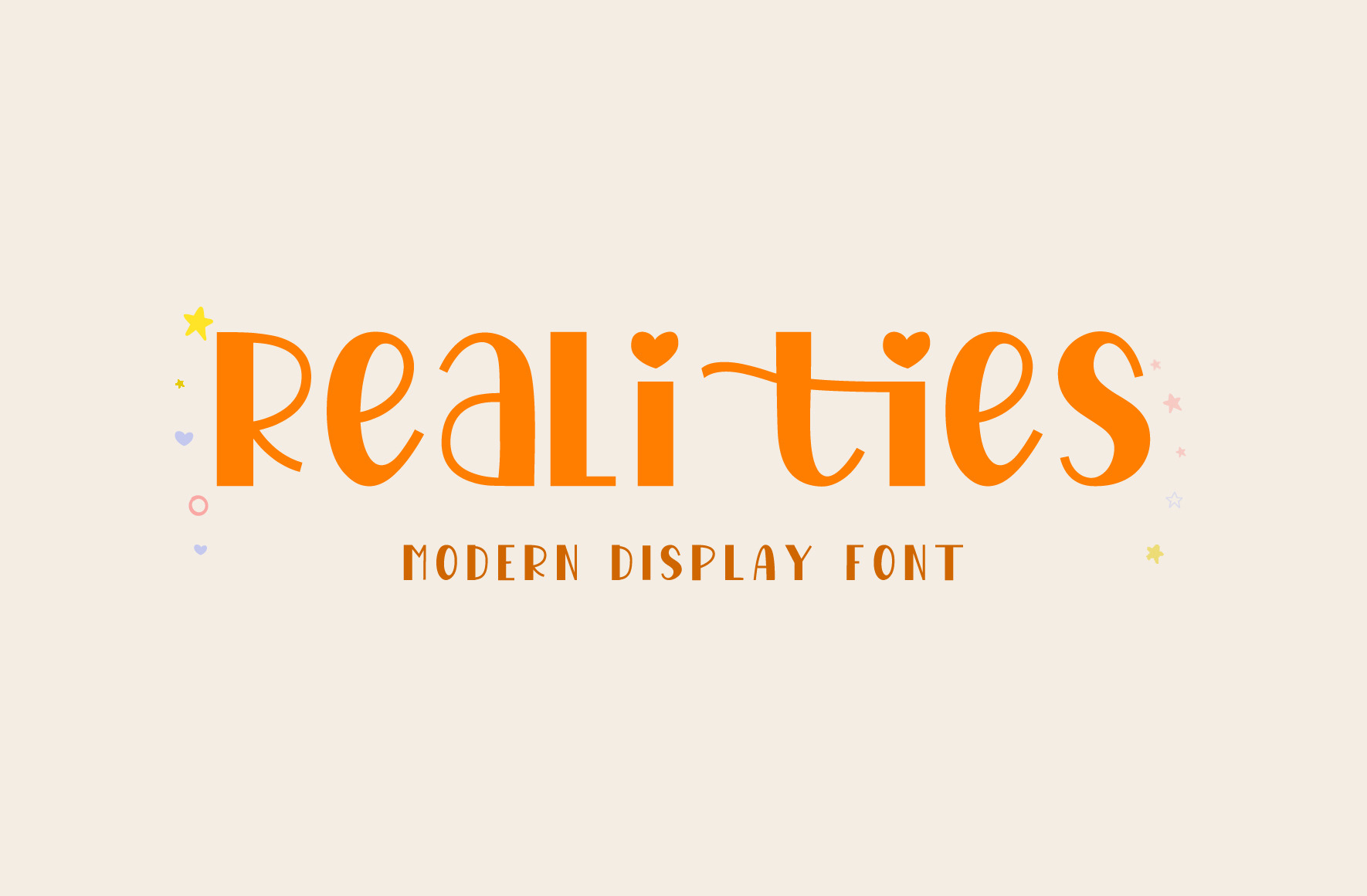
Realities - Display Font
Introducing Realities, cool and modern display font. It is perfect for crafting, headings, flyer, greeting cards, product packaging, book cover, printed quotes, logotype, apparel design, album covers, etc.